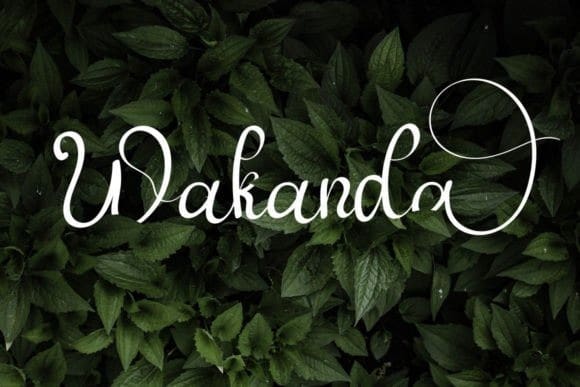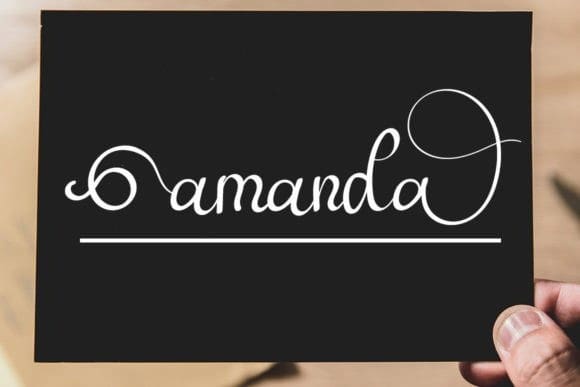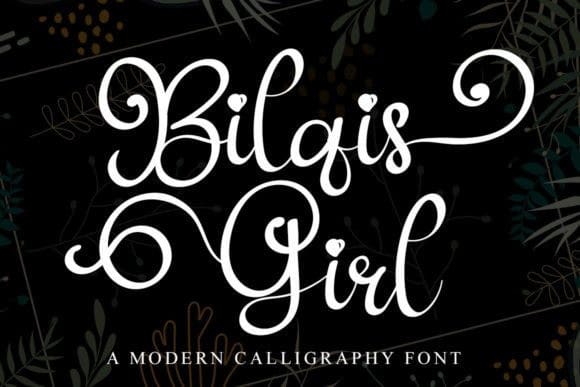
Bilqis Girl Font
Bilqis Girl Font is a beautiful and sweet handwritten font. It is fresh, clean, and elegant. This font will look amazing in a great number of projects, both formal and informal. It will add an incredibly joyful touch to your designs. Fonts are designed to simplify your design. By using this font, your business will look more beautiful.